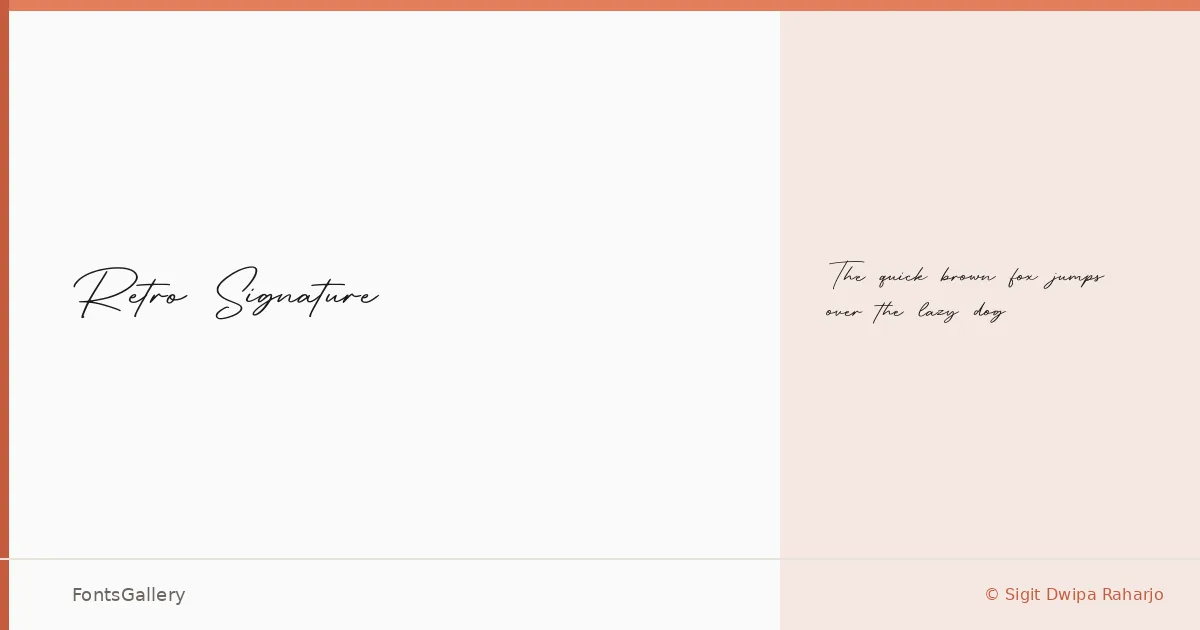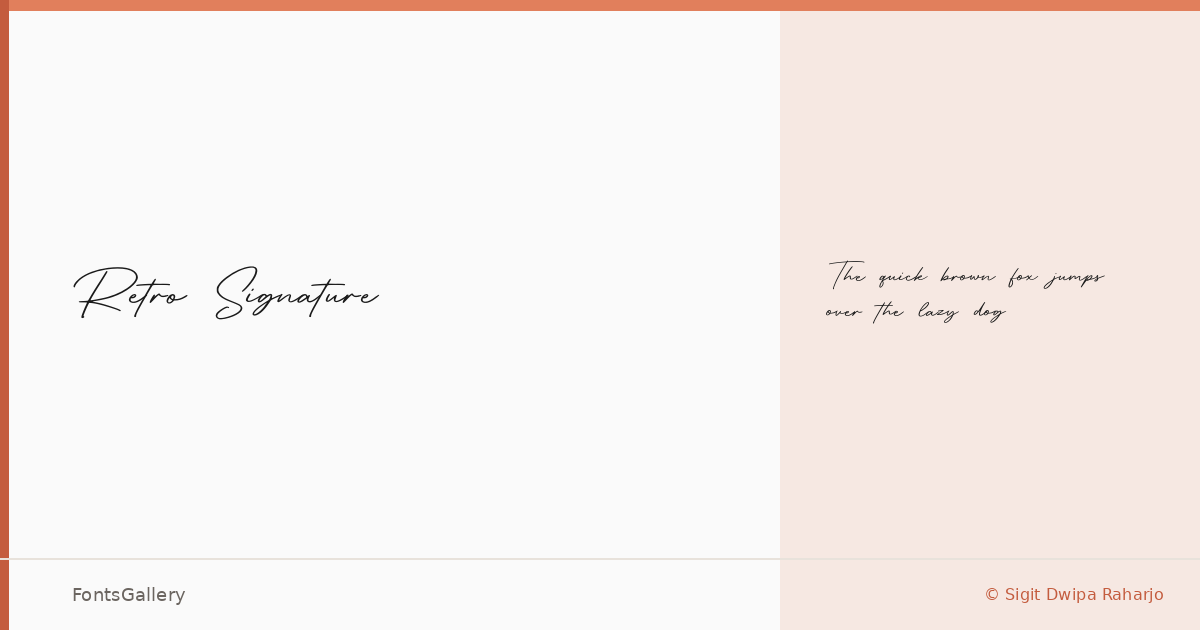
About Retro Signature Font
There is a particular looseness to this script — the kind that suggests a pen lifted at just the right moment, where the ink still carries momentum across the letterforms. Retro Signature is the work of designer Sigit Dwipa Raharjo of Nirmana Visual, and it arrives as a single Regular weight in OTF format, built around a handwritten aesthetic that sits comfortably between old-world elegance and the warmth of something personal.
The script leans into a classic, romantic register — vintage in feeling without being stiff or archaic. The flowing strokes and natural baseline variation give it the kind of character that suits Latin-language settings where an authored, human touch matters. As a single-style family, everything rides on the quality of that one cut, and the letterforms hold up well in display sizes where the subtle pen dynamics read most clearly.
It finds its footing naturally in wedding stationery, invitation cards, and branding or logo work that calls for something graceful and considered. Social media graphics benefit from its legibility at mid-scale. For pairing, the contrasts work well: the structured elegance of Canela or ABC Arizona provides a grounding serif companion, while Helvetica keeps things clean and editorial. (AH) Manal and Anglecia Pro offer alternative routes depending on how much warmth or formality the layout demands.